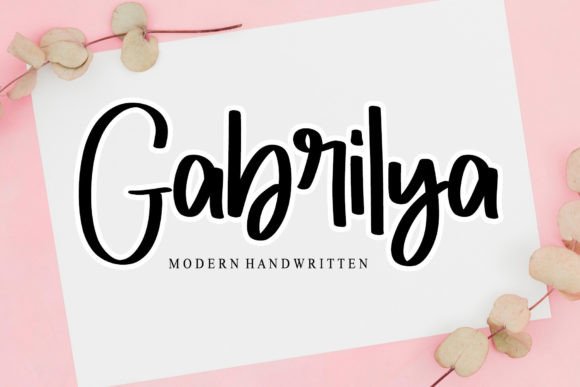
Behold, the Gabrilya Font: A Calligraphic Masterpiece, Designed to Ignite Your Creativity
Step into the world of Gabrilya, a script font that exudes elegance and charm, captivating the hearts of designers and artists worldwide. Letterafa Studio, the visionary creators behind this masterpiece, have meticulously crafted each stroke and curve, resulting in a font that epitomizes timeless beauty.
Immerse yourself in the alluring embrace of Gabrilya, a flowing handwritten font that dances across your designs with grace and flair. Its elegant touch breathes life into your projects, whether it's a heartfelt wedding invitation, a captivating brand logo, or a stunning social media post.
With Gabrilya as your creative companion, you'll embark on a journey of artistic exploration, where your imagination knows no bounds. Its incredibly distinct and timeless style ignites a spark of inspiration, propelling your designs to new heights of sophistication.
Unleash the true potential of Gabrilya and create designs that captivate and enchant. Its versatility knows no limits, adapting seamlessly to a symphony of creative endeavors. From whimsical greeting cards to enchanting posters, from alluring invitations to thought-provoking book covers, Gabrilya becomes an integral part of your artistic expression, leaving an indelible mark on your audience.
Within the digital tapestry of Gabrilya, you'll discover a treasure trove of characters, each a testament to meticulous craftsmanship. Flourishes and ligatures intertwine harmoniously, adding a touch of magic to your creations. Upper and lowercase letters dance in perfect harmony, effortlessly blending into words that resonate with beauty.
Gabrilya is not just a font; it's an experience, an invitation to embark on a creative odyssey where your artistic vision takes center stage. Its presence elevates your designs, transforming ordinary words into captivating expressions of art.